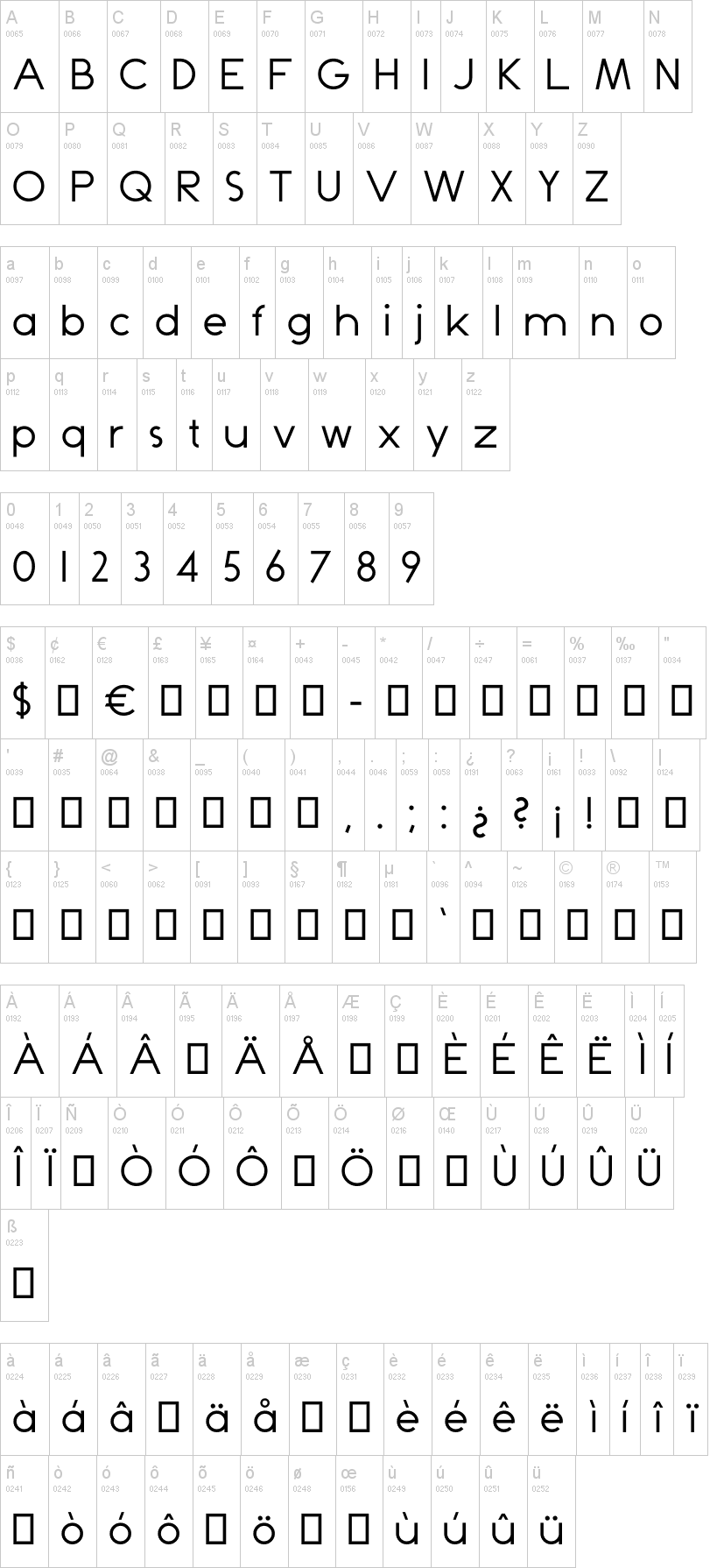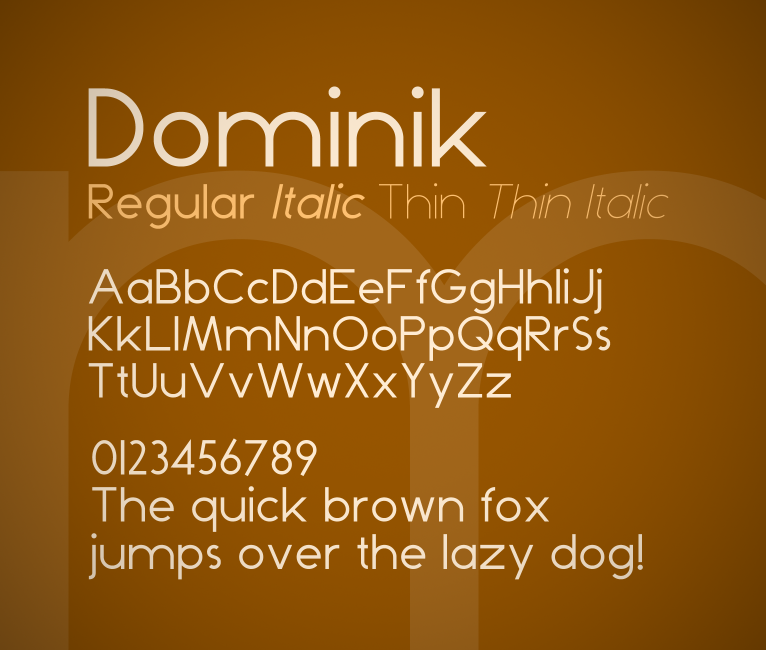
Шрифт Dominik
A geometric sans serif face.
Comes in Regular, Italic, Thin and Thin Italic.
Update 2012/7/11, version 1.10: Fixed lower case 'e', added Italic, Thin and Thin Italic versions.